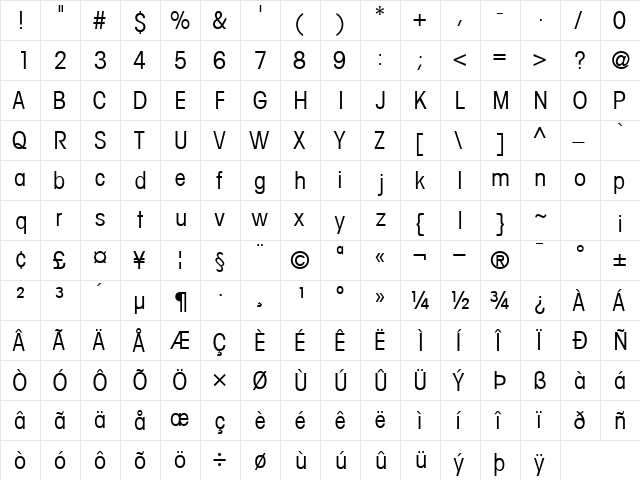
TrendexCondSSK Regular
Design Context for TrendexCondSSK Typeface
TrendexCondSSK offers clean, dependable letterforms without strong stylistic allegiance, making it a practical choice for designers who need flexibility. The condensed width makes it efficient for tight spaces without sacrificing legibility.